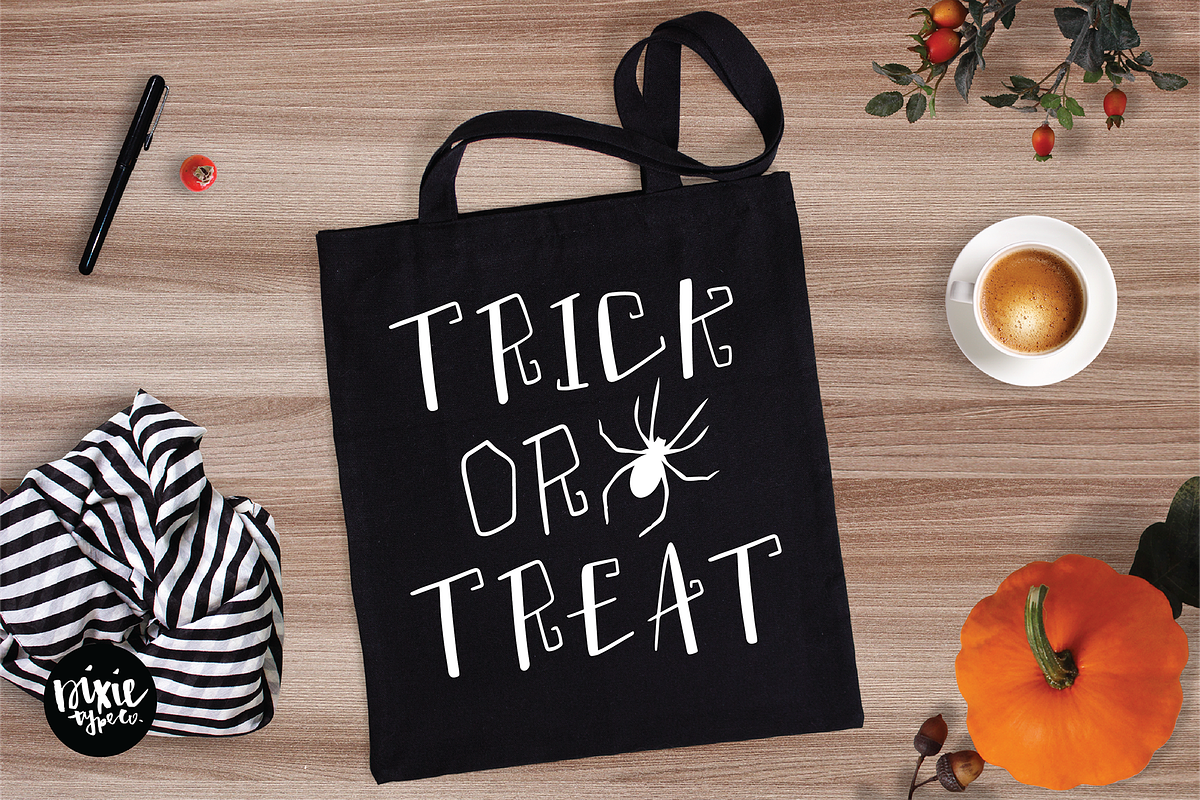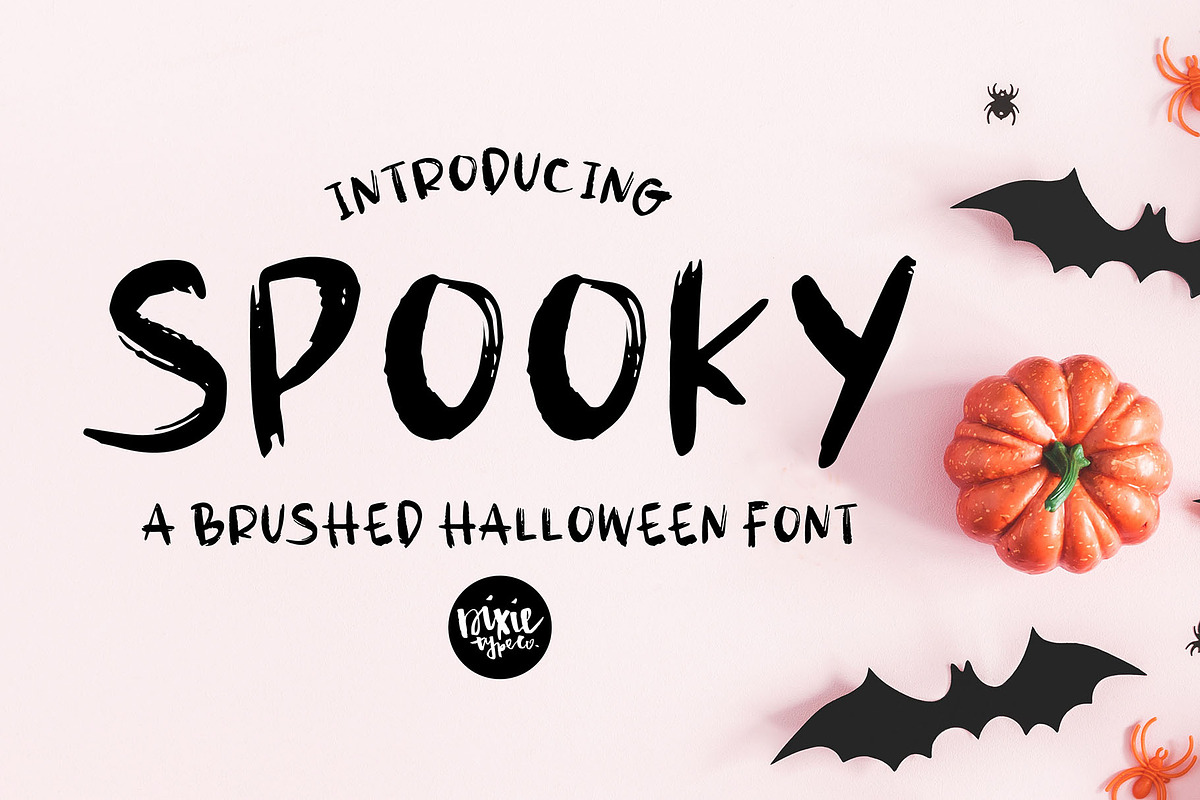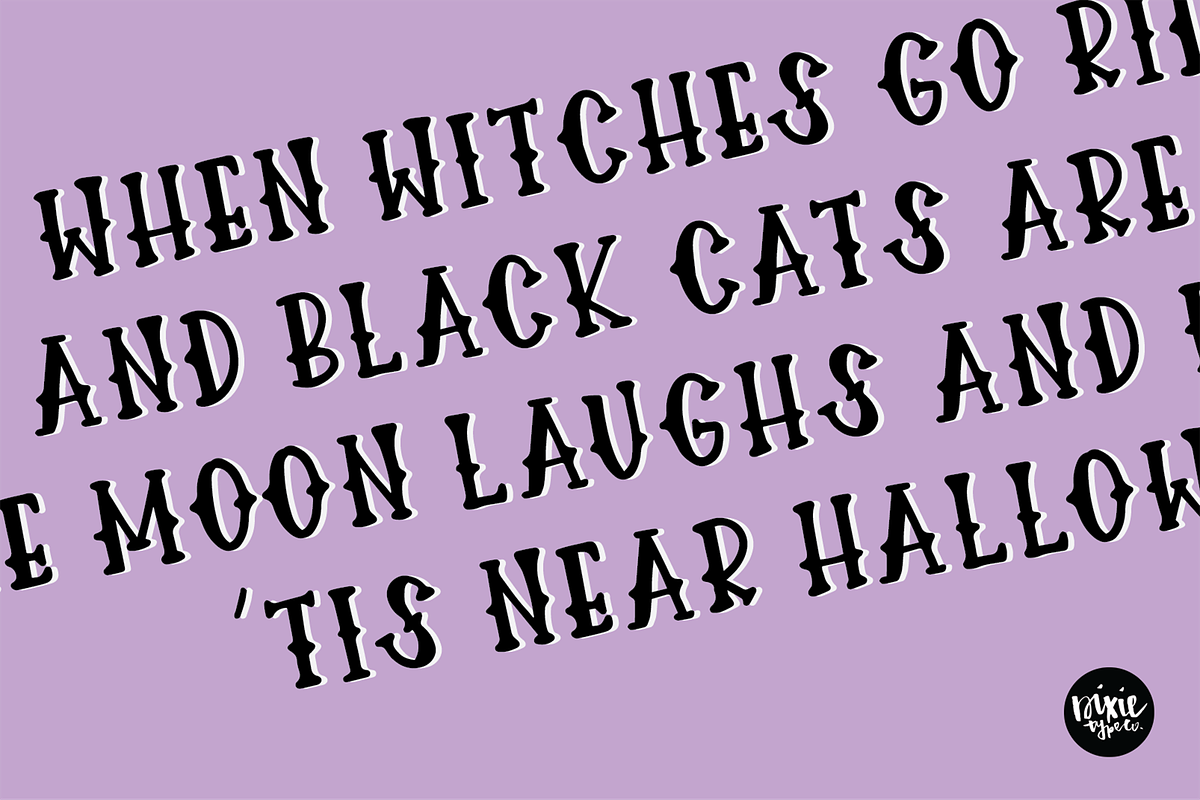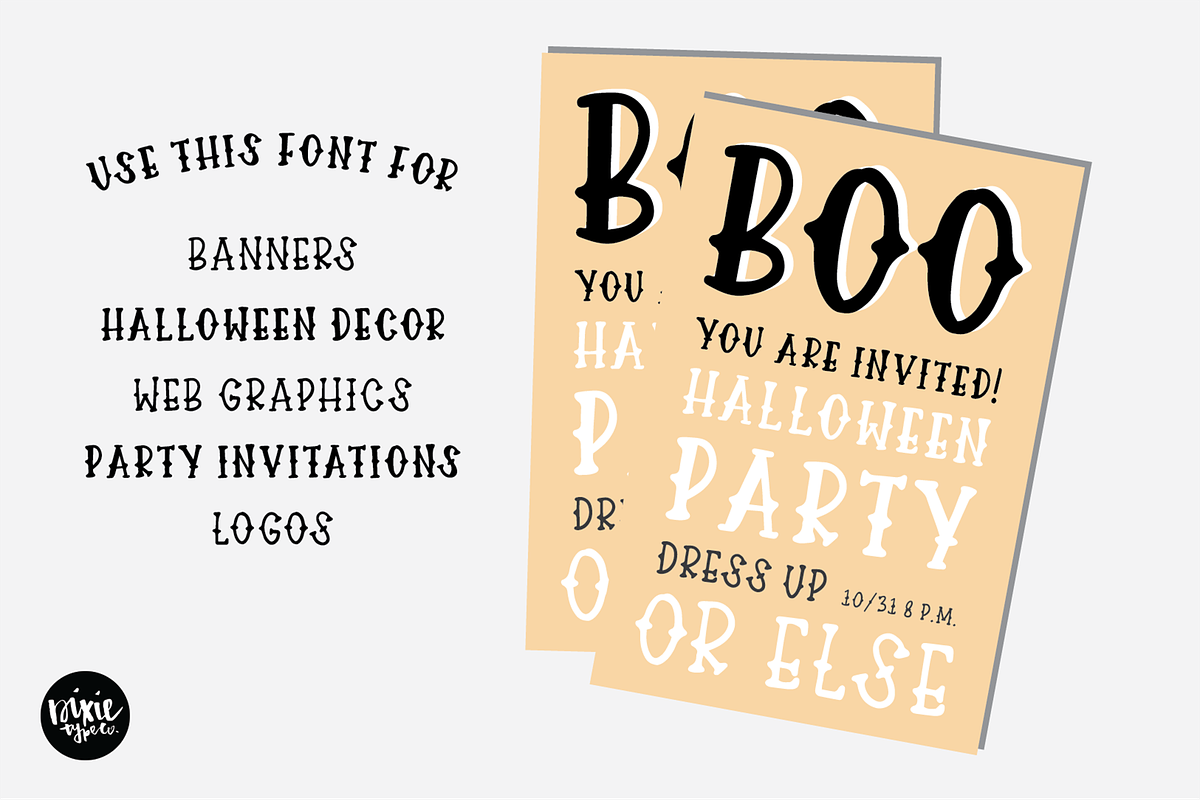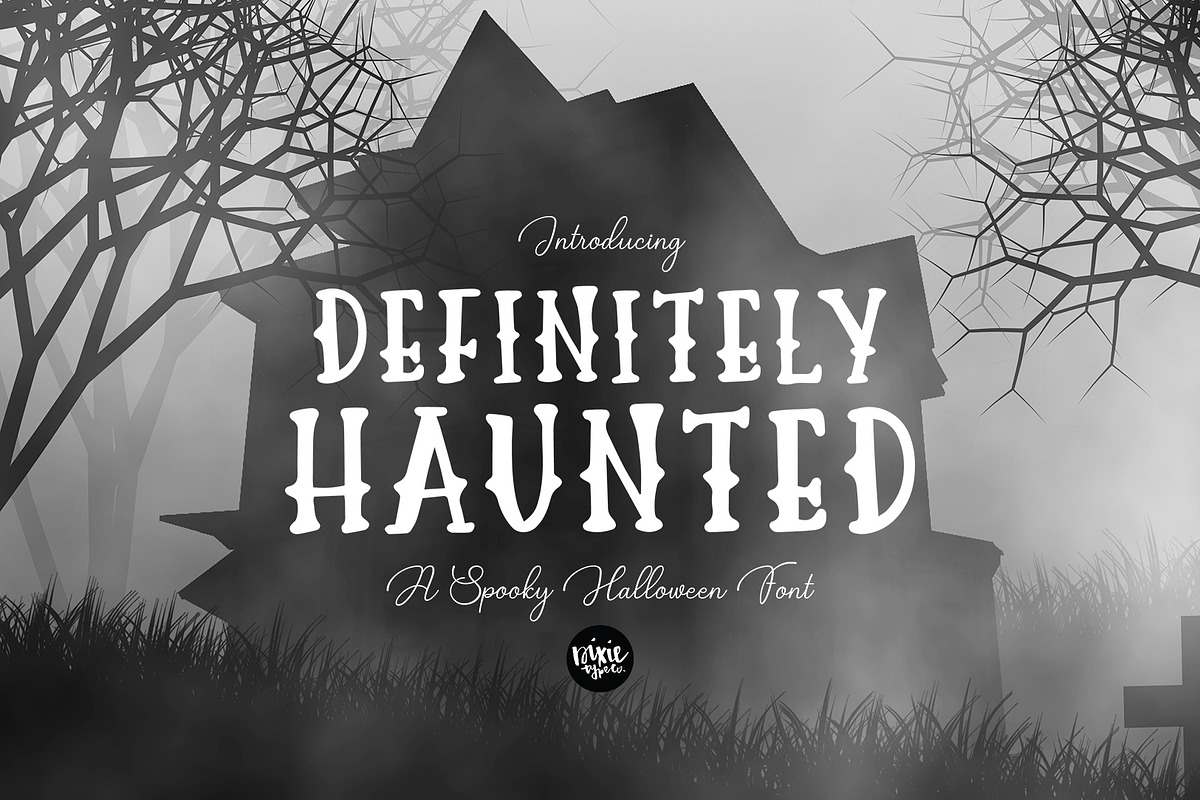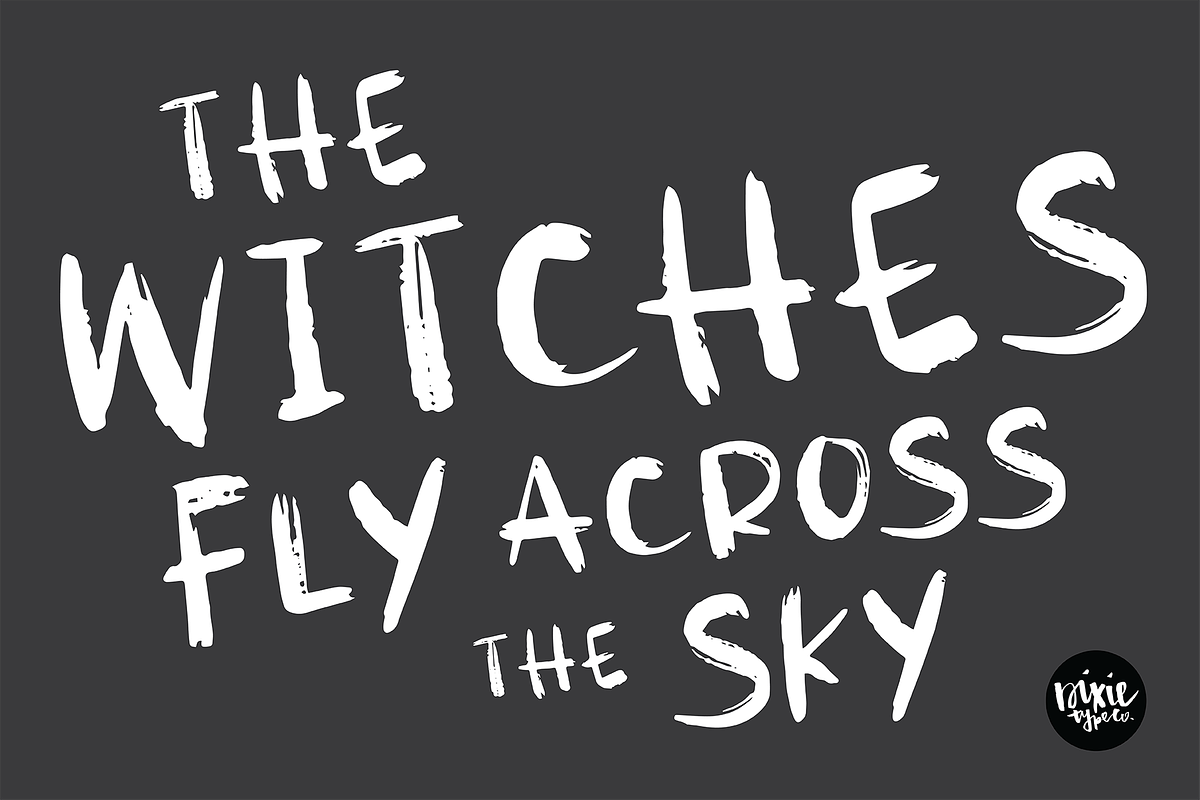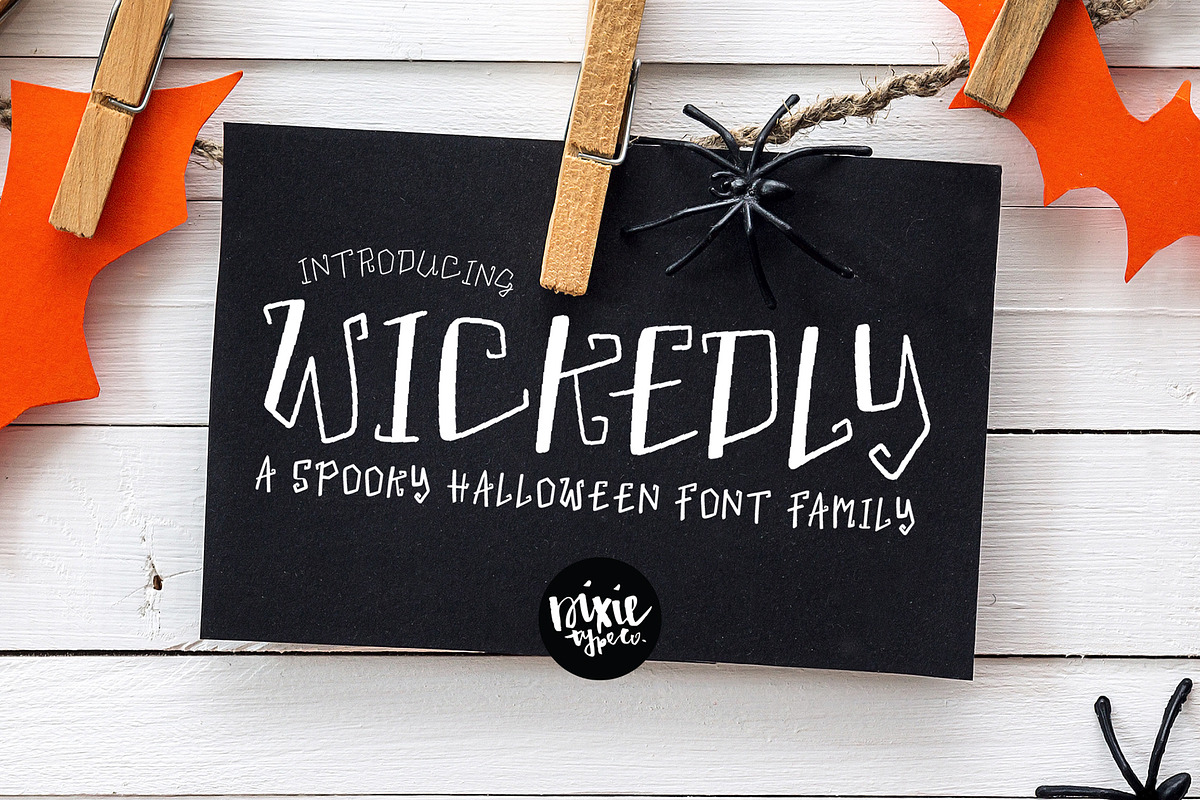
Grab these 4 installable HALLOWEEN font families in one download. These fonts were all hand lettered.
- DTC JACK MYERS BATS
- DTC JACK MYERS BONES
- DTC JACK MYERS WEBS
- DTC Spooky Regular
- DTC Wickedly Regular
- DTC Wickedly Bold
- Definitely Haunted Thin
- Definitely Haunted Regular